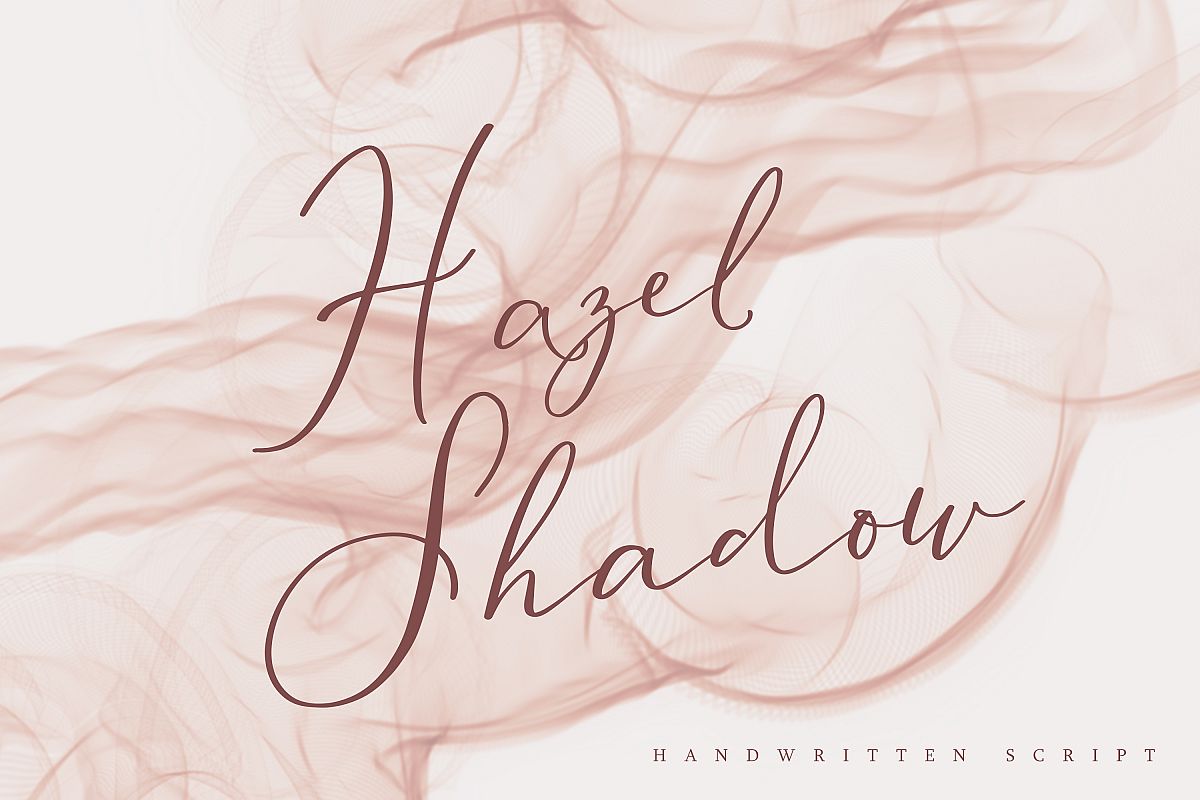
Hazel Shadow, beautiful calligraphy font
HazelShadow
Hazel Shadow is a beautiful calligraphy font, perfect for elegant logos, wedding stationery, websites, titling, headlines, posters, branding and any other projects requiring a handwritten touch. A range of beginning and ending lowercase alternates are included so that you can give your creative design a custom, hand-calligraphy look.